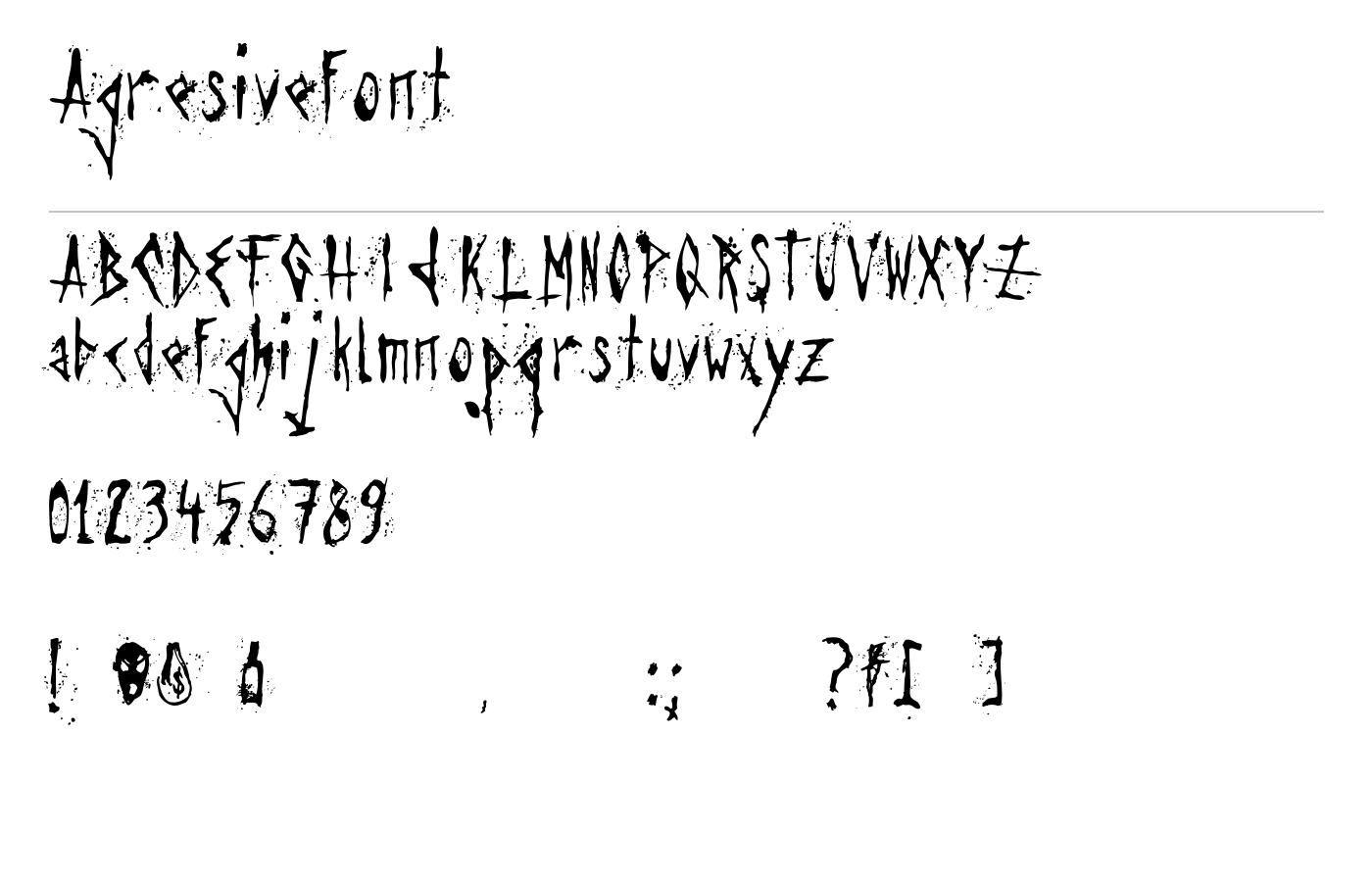
Agresivefont is a distressed, handwritten-style font with jagged, irregular strokes that create a dark, edgy atmosphere. Its narrow and tall letterforms, combined with splattered ink effects, give it a raw, aggressive personality ideal for horror, punk, or grunge-themed designs. This font works best for striking headlines, posters, or branding that demands a bold, rebellious look.
Agresivefont
About Agresivefont